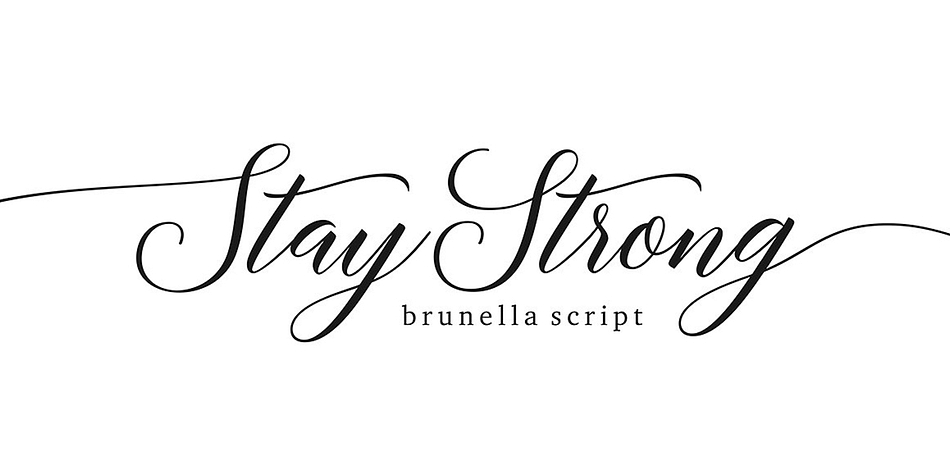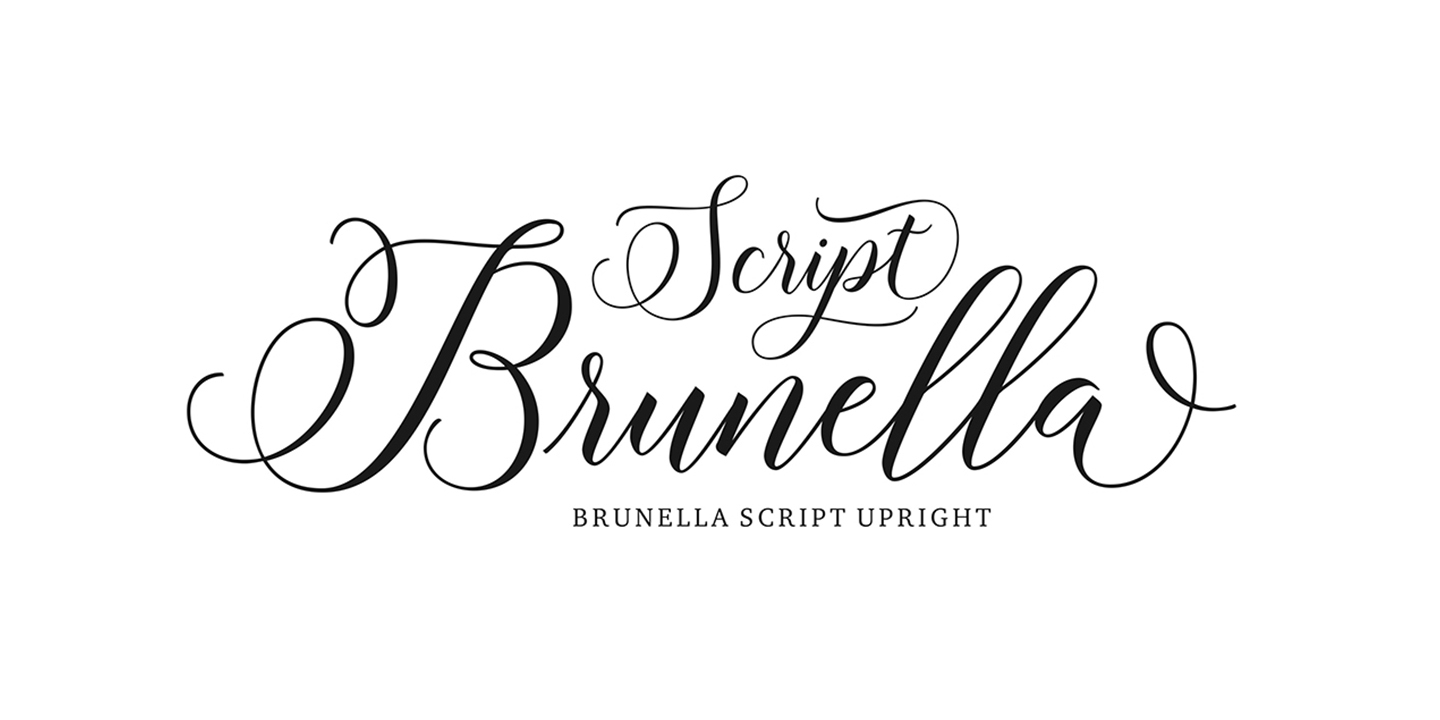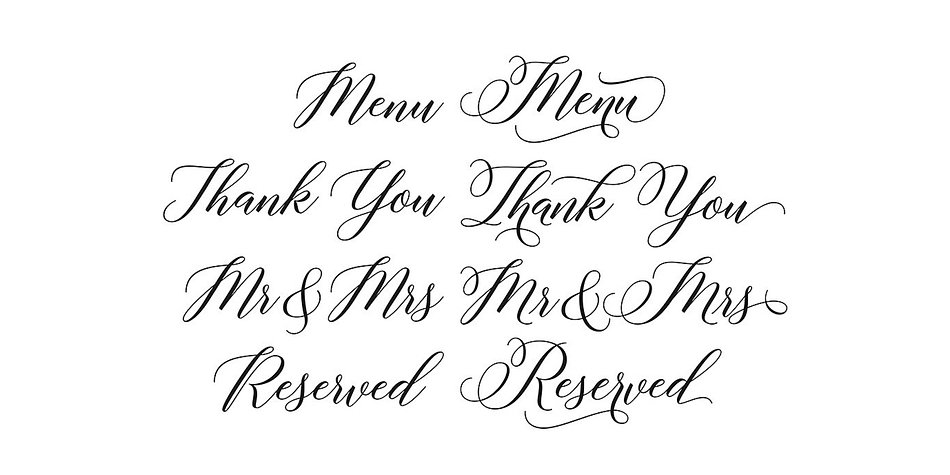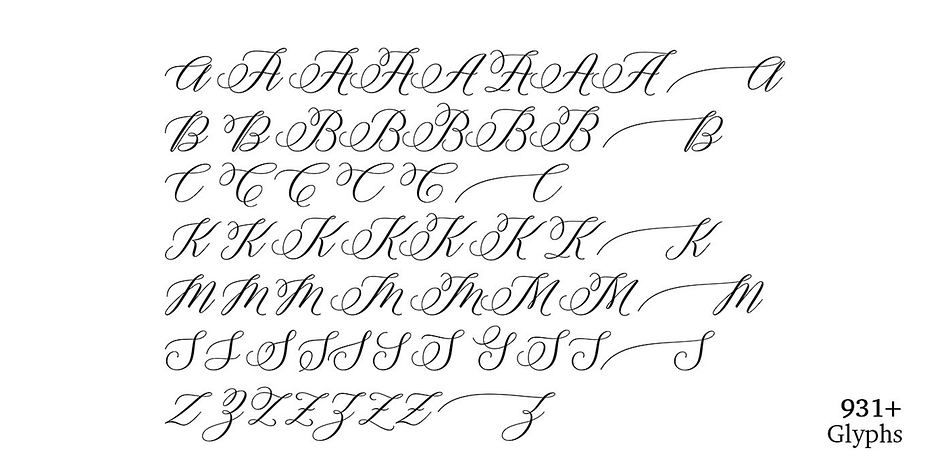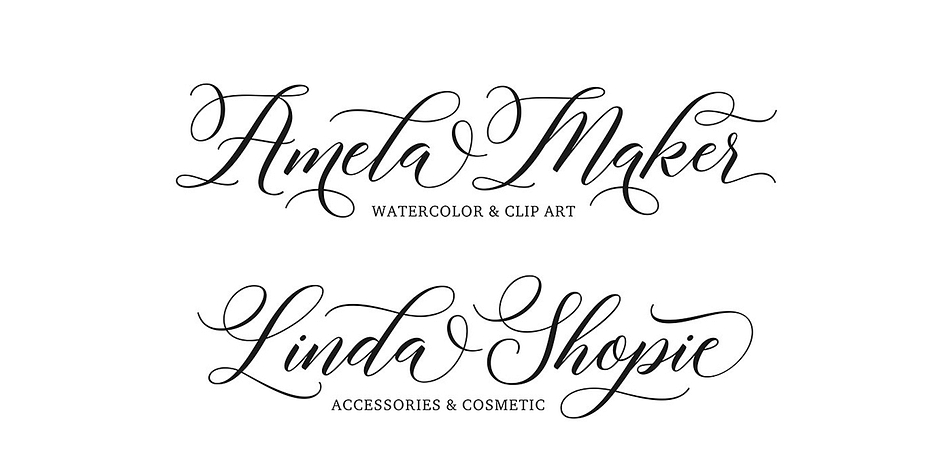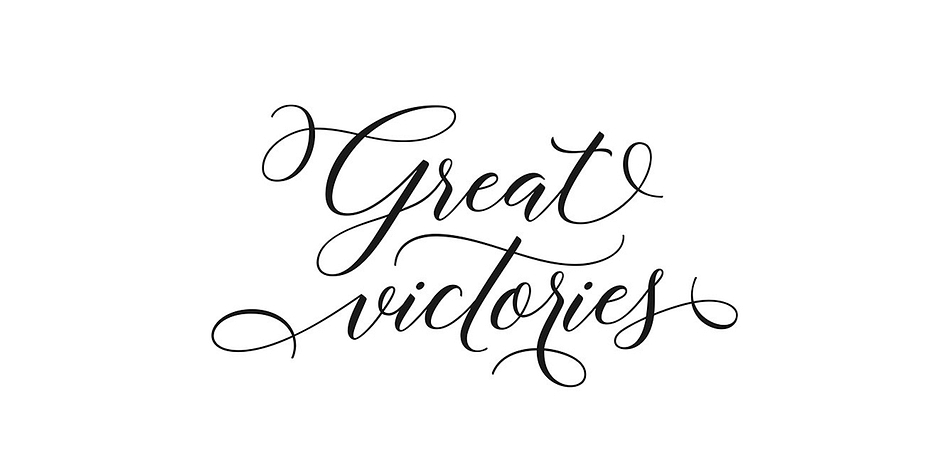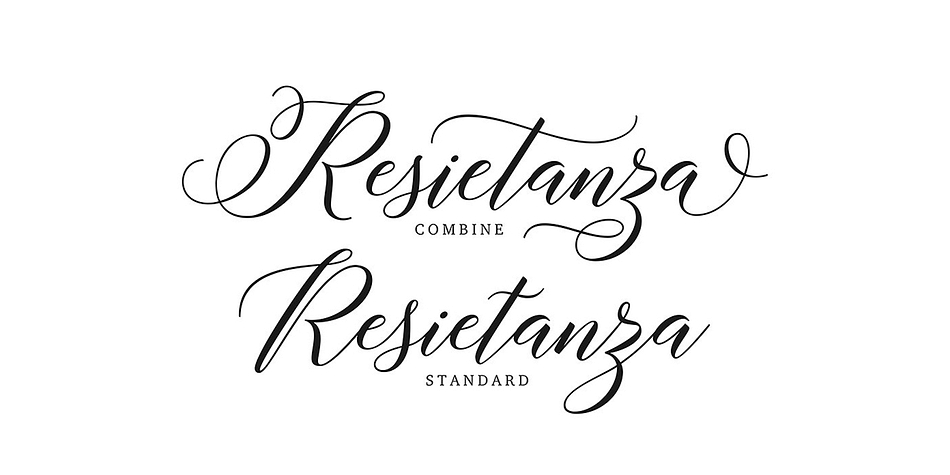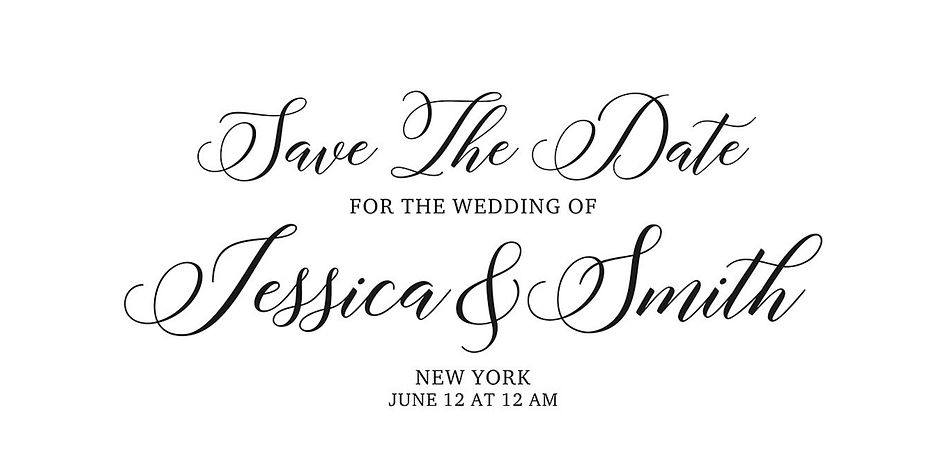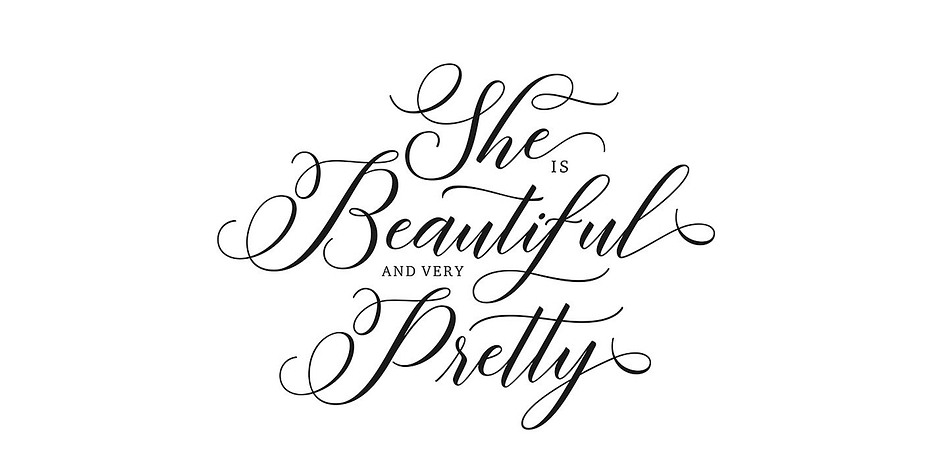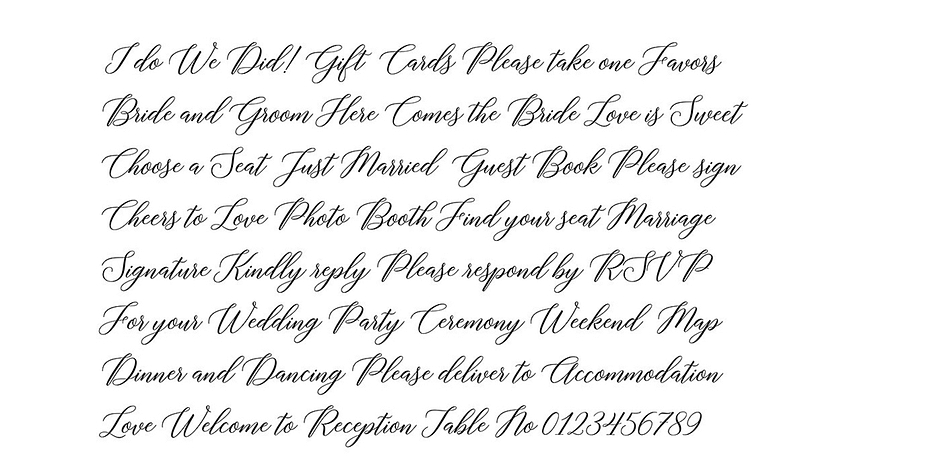
Brunella Script is a modern calligraphy font family. This typeface has four styles and was published by Seniors Studio.
Brunella Script is a modern calligraphy font with a dancing baseline and a clean, classic and elegant touch.
It can be used for various purposes such as headings, signature, logos, wedding invitations, t-shirt, letterhead, signage, lable, news, posters, badges etc.
Brunella Script features 931 total glyphs with 575 alternate characters including OpenType Stylistic alternates, ligatures and international language support.
Style | Modern Calligraphy |